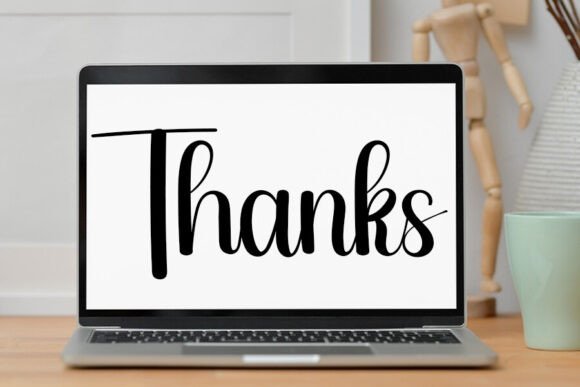
Introduction to Dahlia Font
Remember that moment when you’re working on a creative project, and you’re struggling to find the perfect font to convey your message? The frustration is real, but what if I told you that there’s a game-changing font out there that can elevate your designs to the next level?
Enter the enchanting Dahlia Font, a masterpiece of typography that’s sure to cast a spell on your audience. With its captivating design and adaptable nature, Dahlia Font is the ultimate design resource for creatives who want to take their projects to new heights. Whether you’re working on a YouTube banner, a logo mockup, or a wedding invitation, Dahlia Font is the perfect companion to help you achieve high-quality results.
As a valuable addition to your design toolkit, Dahlia Font offers a transparent background, making it easy to integrate into your projects. Plus, it’s available for free download, making it an accessible resource for designers of all levels. With Dahlia Font, you’ll be able to infuse your designs with elegance and uniqueness, setting you apart from the competition and leaving a lasting impression on your audience.
Key Features of Dahlia Font
- High-quality design resource ideal for creative projects, including invitations, posters, and more.
- Features a transparent background, allowing for easy layering and customization in your design.
- Available in a range of sizes and resolutions, ensuring it looks great on both digital and print materials.
- Unique, elegant design that adds a touch of sophistication to any creative project.
- Perfect for designers looking for a high-quality, free design resource to elevate their work.
Honest Review: Dahlia Font
As a designer, I’m always on the lookout for high-quality design resources to elevate my creative projects. The Dahlia Font is one such find that caught my attention. Its elegant and intricate design makes it perfect for any project that requires a touch of sophistication.
Here’s what I like about the Dahlia Font: ✨ It has a transparent background, making it easy to customize and combine with other design elements. ✨ The font is available for free download, which is a huge plus for designers on a budget. ✨ The design is versatile and can be used for a variety of projects, from wedding invitations to branding materials.
However, there are a few limitations to keep in mind: ⚠️ The font may not be suitable for very small text sizes, as the intricate details can get lost. ⚠️ The font family is relatively small, so you may need to rely on other fonts to create a complete design.
Overall, the Dahlia Font is a great addition to any designer’s toolkit. While it may have some limitations, its high quality and versatility make it a valuable resource for any creative project.
- Perfect for elegant and sophisticated designs
- Versatile design suitable for various projects
Tips for Getting the Most Out of Dahlia Font
For the best results, use Dahlia Font on a transparent background to give your design a high-quality, professional look. You can also experiment with different font sizes, colors, and styles to create a unique and creative project.
Dahlia Font is a versatile design resource that can be used in a variety of creative projects, such as logo designs, invitations, and social media graphics. Its high-quality design makes it perfect for business cards, brochures, and other marketing materials.
Does the Dahlia Font include a transparent background?
Yes, the Dahlia Font includes a transparent background, making it easy to integrate into your designs without any unwanted background elements. This feature is particularly useful when creating designs with complex backgrounds or when you need to layer the font over other design elements.